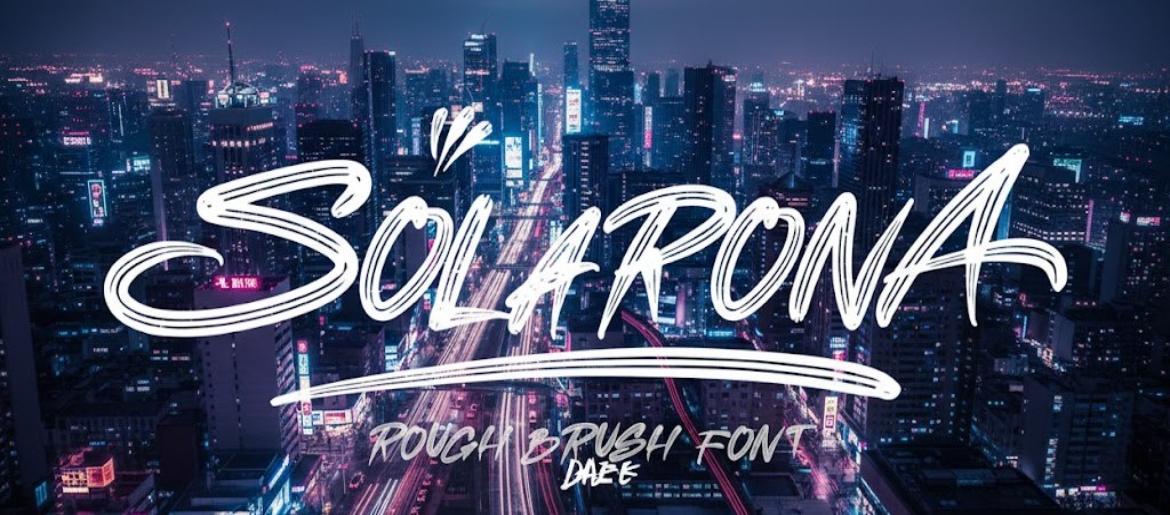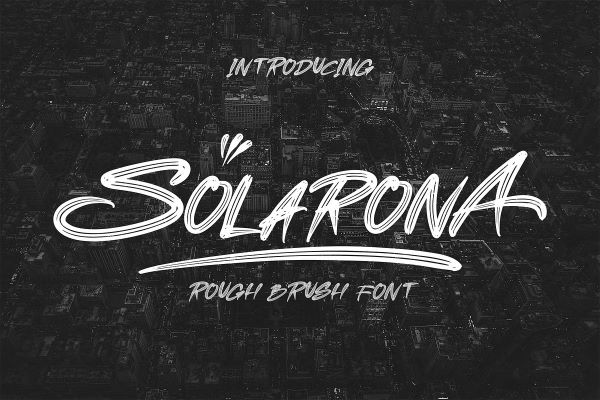
SOLARONA Font
SOLARONA font
SOLARONA Font is a dynamic brush-style typeface created with natural, expressive brush strokes. Its textured and artistic look adds energy and uniqueness, making it perfect for branding, posters, packaging, and graphics that need a bold, attractive, and handcrafted feel.
➤ Font Name: SOLARONA
➤ Designer: NTC Graphic
➤ Style: Brush, Graffiti